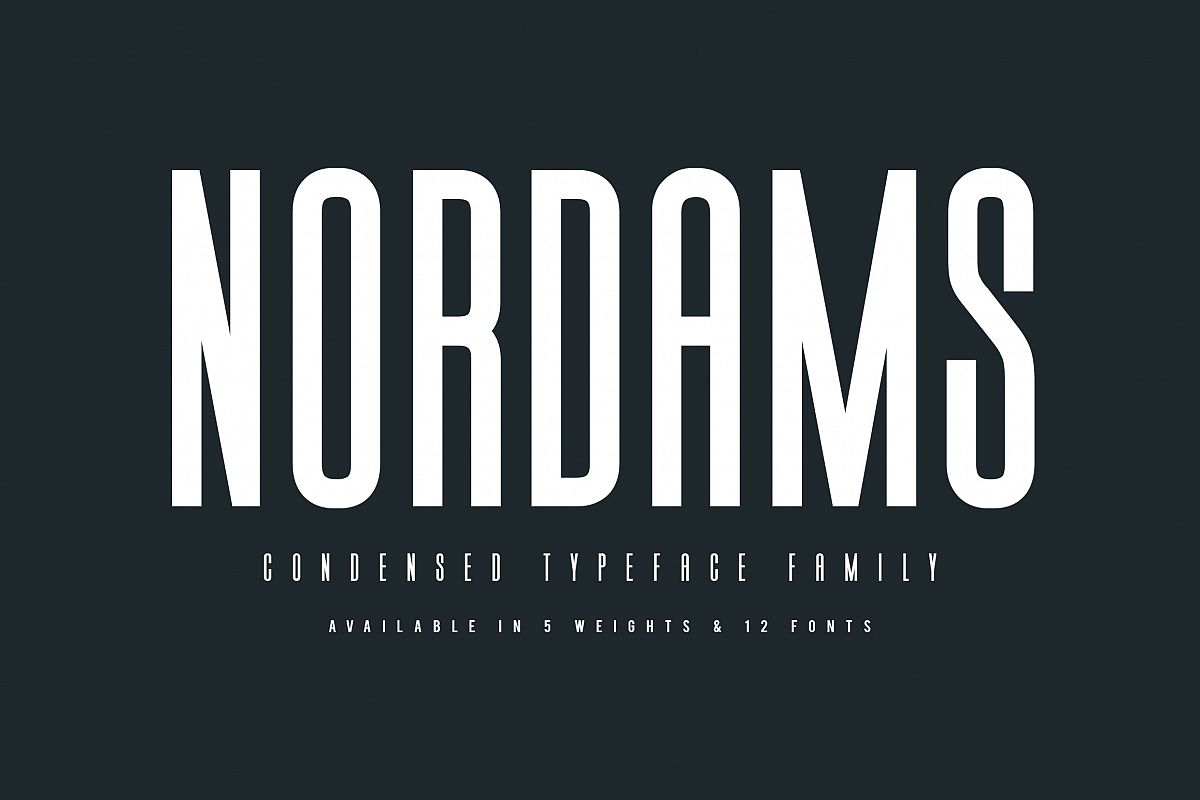
NORDAMS is a bold sans serif with Bold-Italic, Bold, Light-Italic, Light, Medium-Italic, Medium, Regular-Italic, Regular, Thin-Italic-Outline, Thin-Italic, Thin-Outline, Thin font files. NORDAMS is perfectly suited to branding, logos, magazines, films, website, headlines, titles, captions, games, apps, posters, t-shirts and more.This font available: